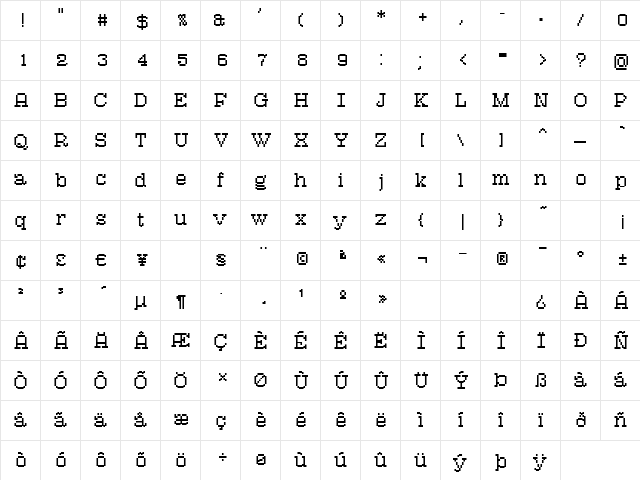
AtlantisTextRegular Regular
Design Context for AtlantisTextRegular Typeface
AtlantisTextRegular is a composed and adaptable typeface that performs quietly and consistently across a wide range of design contexts.